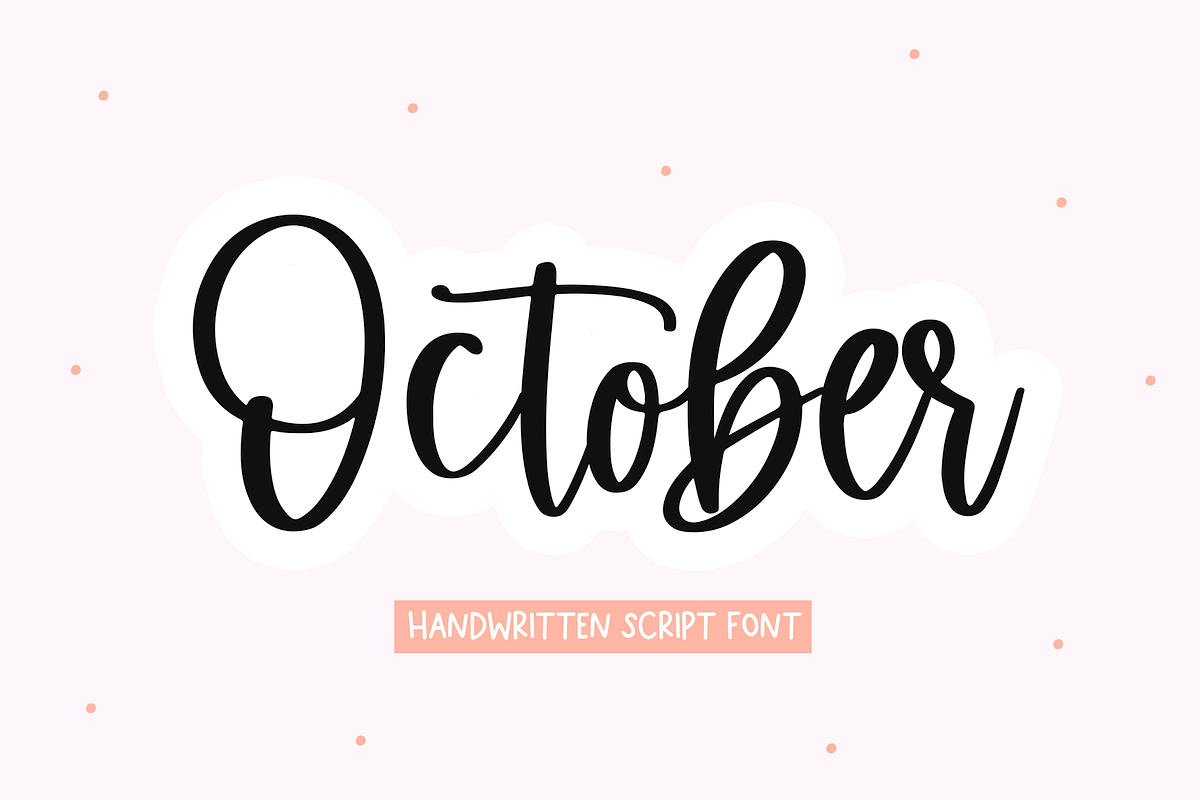
October | Handwritten Script Font Free Download is a charming, artistic typeface with a flowing, handwritten style. Perfect for personal branding, wedding invitations, greeting cards, logos, and social media posts, October brings a personal and elegant touch to any design.
With its smooth, flowing curves and warm, inviting feel, this font is ideal for projects that require a soft, yet bold, expression. October includes uppercase and lowercase letters, punctuation, multilingual support, and is fully compatible with both Mac and Windows systems.